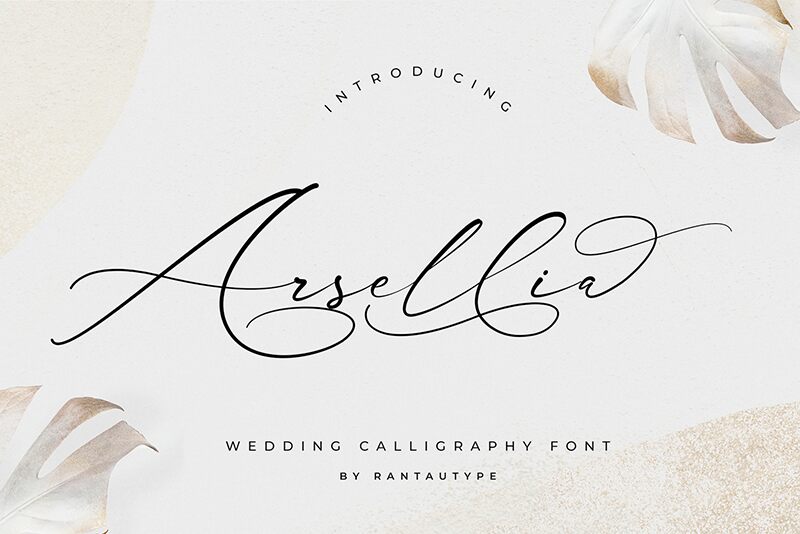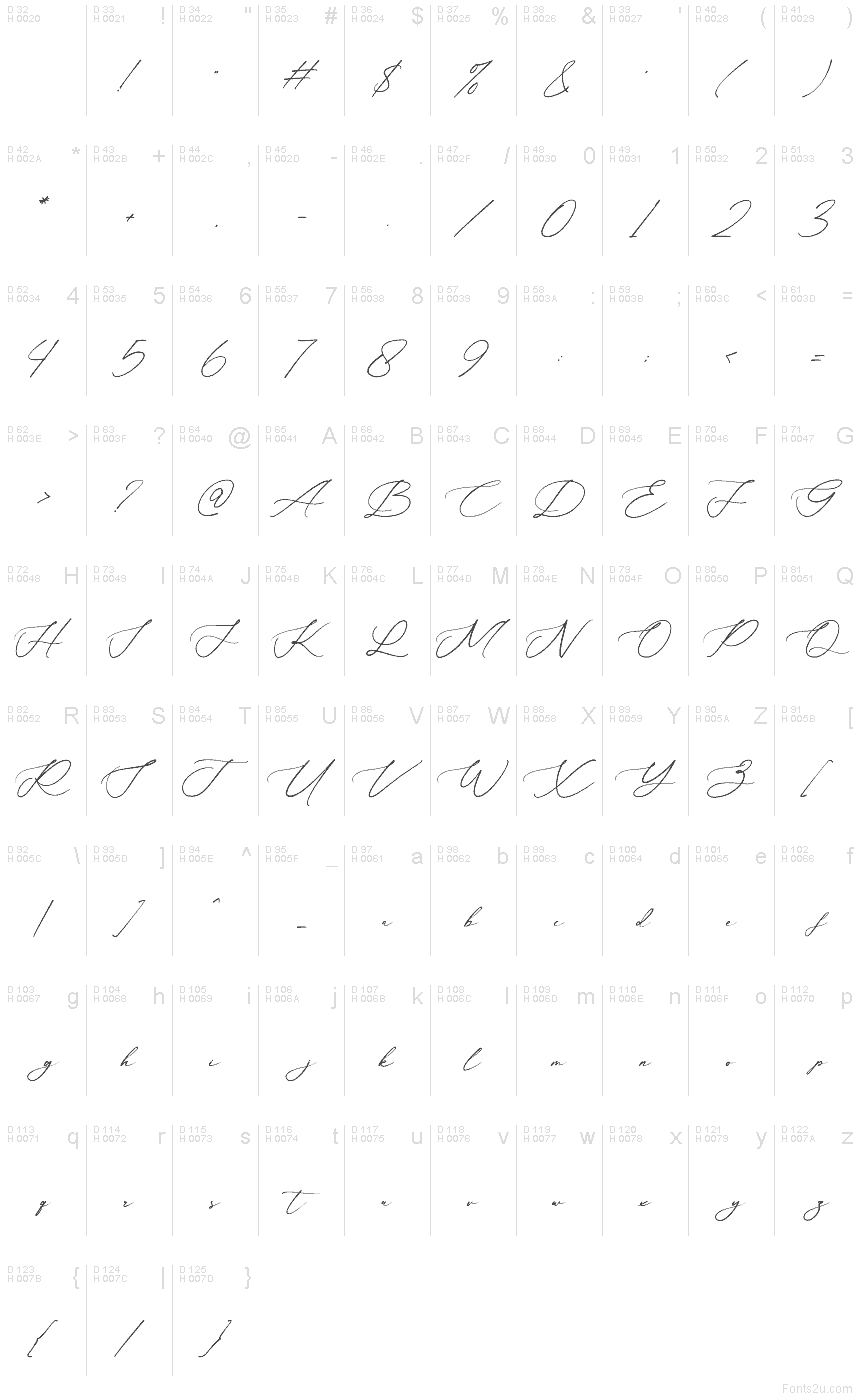
Arsellia
Arsellia font is a free calligraphy font by RantautypeStudio. This light font has an elegant and sophisticated look with its modern script style which gives it a graceful and stylish appearance. It will enhance your projects with a flowy touch and add timelessness to every design.
Use this beautiful typeface in personalized invitations, branded logos, university certificates, restaurant branding, magazines layouts, print packaging, social media posts daily quotes designs!